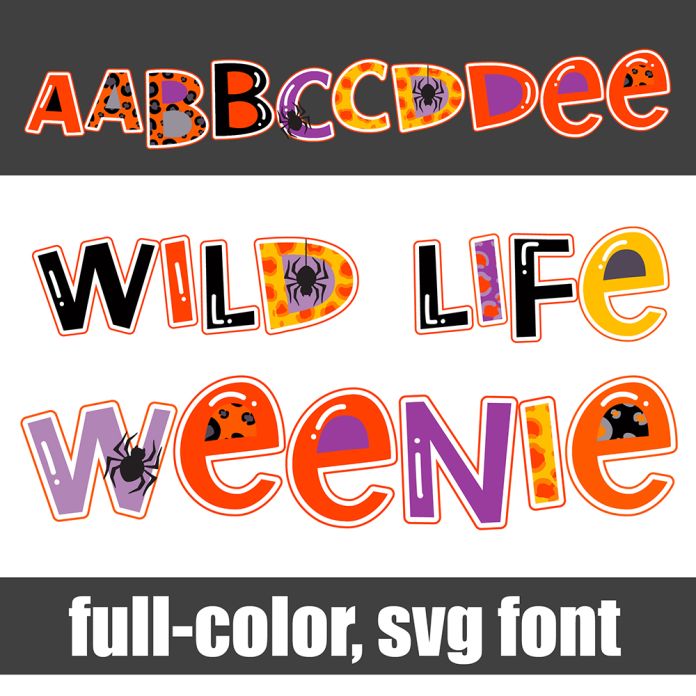
This full-color font features a whimsical, squat, sans serif font in a Halloween color palette with spiders and animal prints throughout. There is an alt version you can access through your system's character map that contains additional colors of all the letters. This font works best for titles, displays, posters and more. Please note color fonts will show as black in non compatible programs. This font type is compatible with Silhouette Studio.